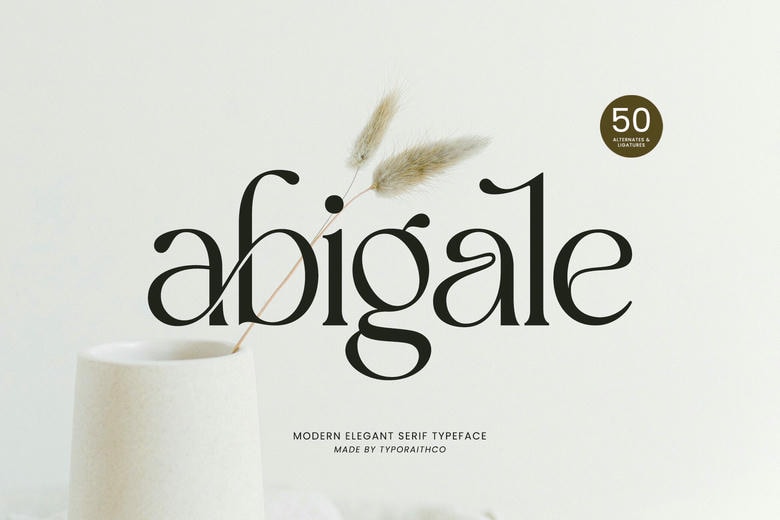
Abigale is an art of fineness and flowing creation. It is a current serif font that has gorgeous ligatures and more than 50 alternate characters that can be customized to look really high end. Its elegant sweeping lines and crisp serifs are best suited to luxury fashion branding, magazine headlines, high end wedding invitations, and high end skin care packaging. Abigail does not simply play with the letters of a name, but this is a story of the eternal beauties.
Abigale Serif Font